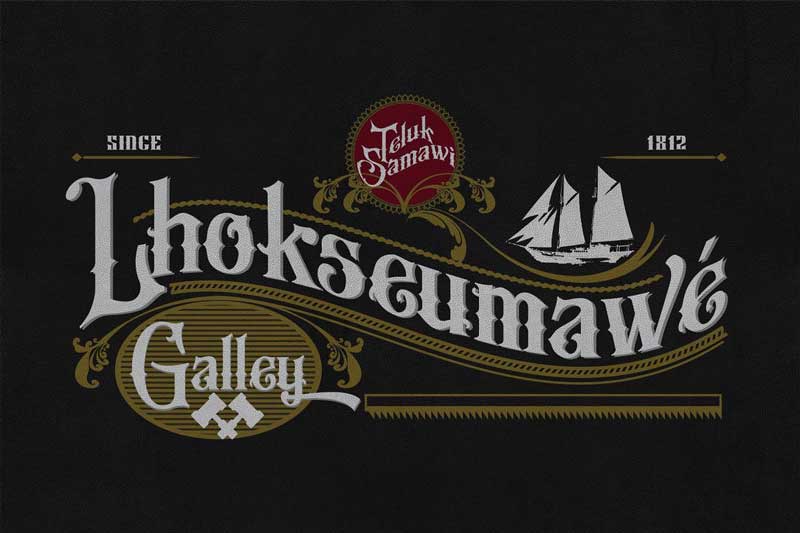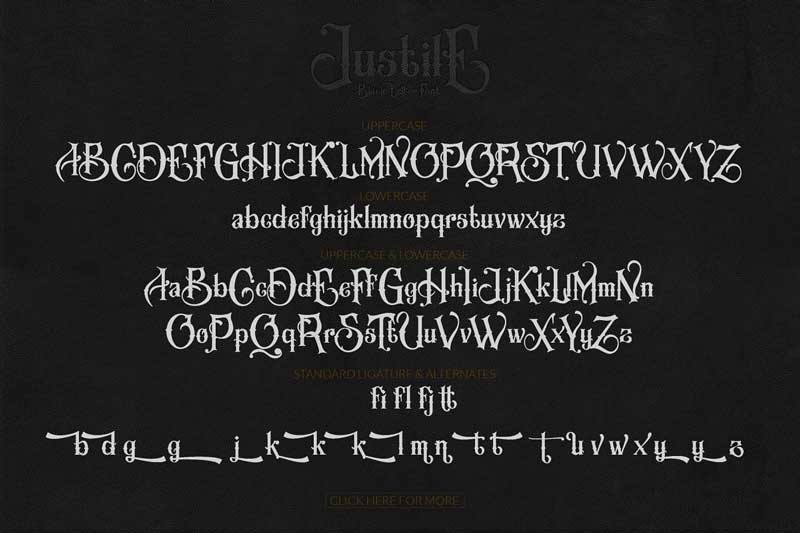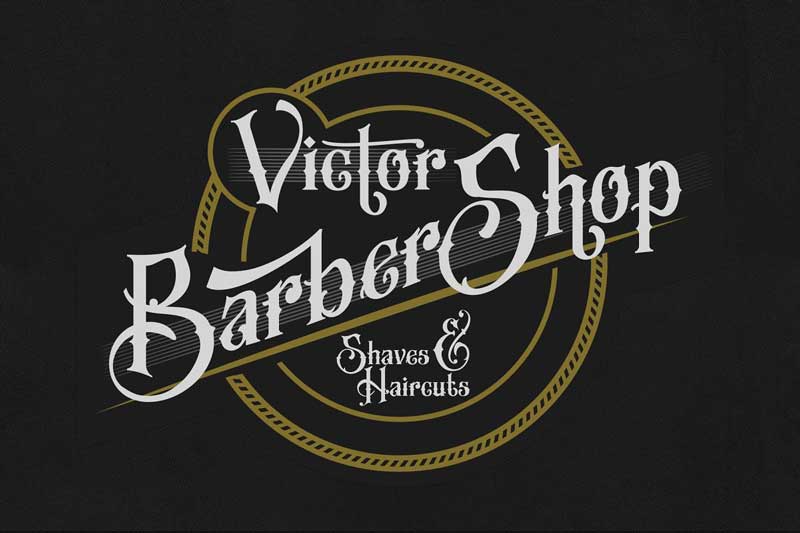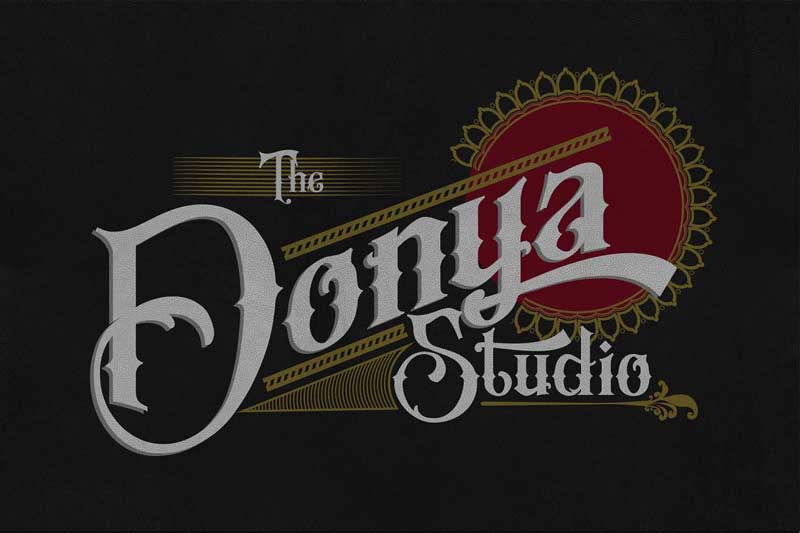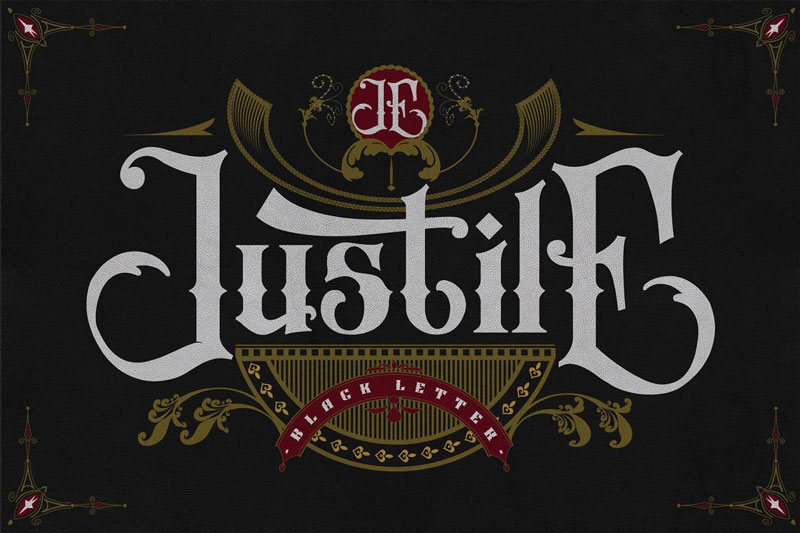
Justile + Extra Logos Template Font
Justile + Extra Logos Template is Black Letter Font, Justile is Handmade and drawing font. Justile inspired by Natural Vintage Ornament With Uppercase with Victoria Style and Lowercase inspired by serif Style. Also checkout Trustdeer Handbrush Font.
Justile + Extra Logos Template is Black Letter Typeface font expected you will find fantastic Logos, Branding, Tattoo, Vintage Logo and Display font.**
Opentype Feature:
• Standard Typeface
• Uppercase and Lowercase
• Symbols Alternates
• Ligature
• Punctuation, Symbols, Basic Latin and Extended